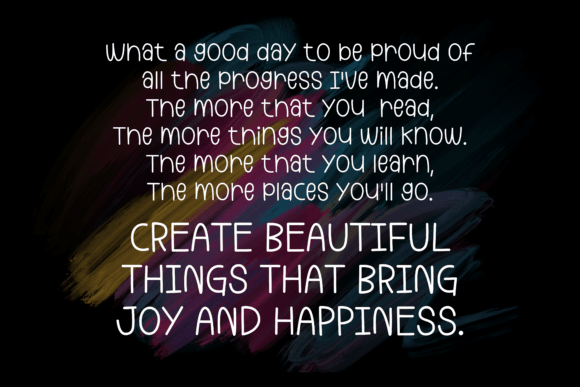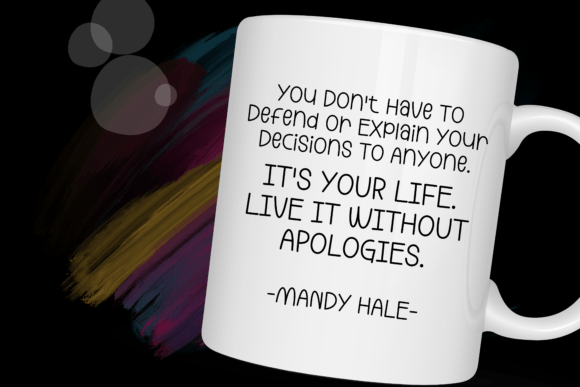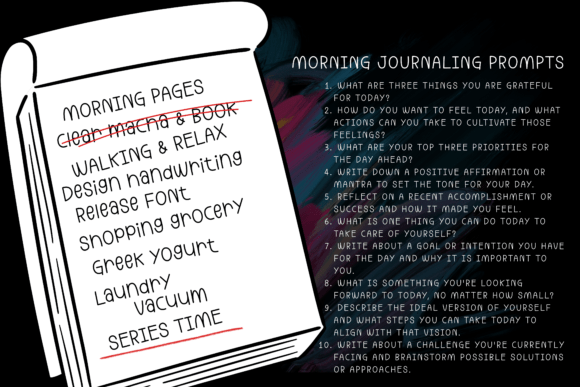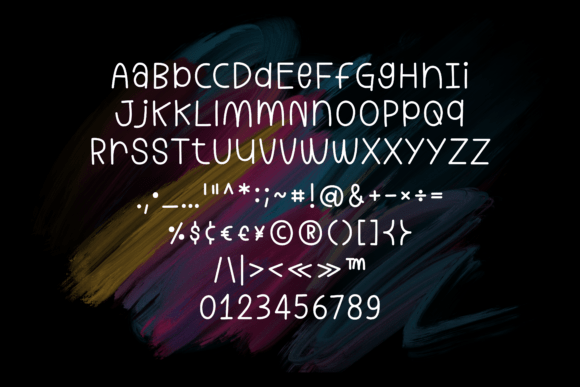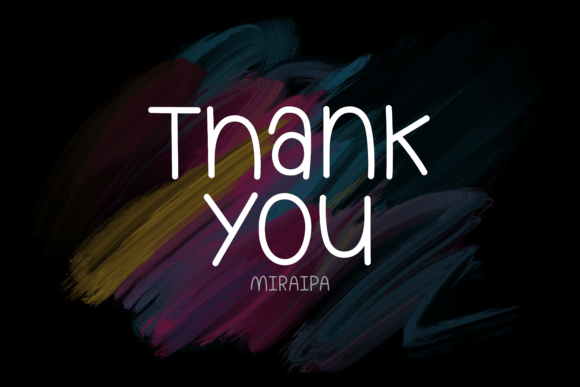
Introducing the “Guest” Font: A Quirky and Friendly Handwritten Sans Serif Font
Are you looking for a font that adds a cute and quirky touch to your designs? Look no further than the “Guest” font, a handwritten sans serif font that’s perfect for a variety of projects. From t-shirts and coffee mugs to hoodies and tote bags, this font is sure to bring a smile to anyone’s face. In this article, we’ll take a closer look at the “Guest” font and explore its many uses.
A Font for All Occasions
The “Guest” font is a versatile font that’s suitable for a wide range of projects. Its friendly and approachable style makes it perfect for designs that need a personal touch. Whether you’re creating a funny t-shirt, a heartfelt greeting card, or a digital planner, this font is sure to fit the bill. The font’s sans serif style gives it a clean and modern look that’s perfect for digital projects, while its handwritten feel adds a touch of warmth and personality.
Key Features of the “Guest” Font
The “Guest” font offers a full character set, including:
- Uppercase and lowercase letters
- Numerals
- Punctuation marks
This means you can use the font to create a wide range of designs, from simple quotes and phrases to longer texts and paragraphs. The font’s full character set also ensures that you can match the font to your brand’s style, or use it to create a unique and eye-catching design.
Perfect for Printing and Digital Projects
The “Guest” font is perfect for both printing and digital projects. Its clear and legible style makes it easy to read, even at small sizes. This makes it ideal for designs that need to be printed, such as t-shirts, mugs, and tote bags. At the same time, its modern and clean style makes it perfect for digital projects, such as social media posts, digital planners, and digital notes.
Adding a Funny and Cute Touch to Your Designs
The “Guest” font is designed to add a funny and cute touch to your designs. Its quirky and playful style is sure to bring a smile to anyone’s face. Whether you’re creating a design for a children’s product, a greeting card, or a social media post, this font is sure to add a touch of personality and whimsy. The font’s handwritten feel also gives it a personal and approachable style that’s perfect for designs that need a human touch.
Examples of Projects that Use the “Guest” Font
The “Guest” font is a versatile font that can be used for a wide range of projects. Here are a few examples:
- T-shirts and hoodies: The font’s clear and legible style makes it perfect for designs that need to be printed on clothing.
- Coffee mugs and tote bags: The font’s quirky and playful style makes it perfect for designs that need to add a touch of personality to everyday products.
- Greeting cards and invitations: The font’s friendly and approachable style makes it perfect for designs that need to convey a personal touch.
- Digital planners and digital notes: The font’s modern and clean style makes it perfect for digital projects that need a touch of personality.
- Social media posts: The font’s quirky and playful style makes it perfect for social media posts that need to stand out from the crowd.
The “Guest” font is a quirky and friendly handwritten sans serif font that’s perfect for adding a cute touch to your designs. Its versatile style makes it suitable for a wide range of projects, from printing and digital projects to social media posts and greeting cards. With its full character set and clear and legible style, this font is sure to become a favorite among designers and crafters. So why not give it a try and see how it can add a touch of personality and whimsy to your designs?